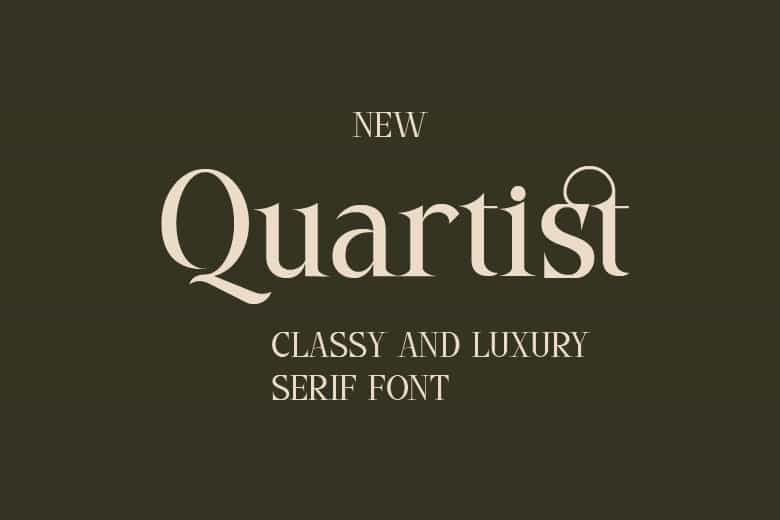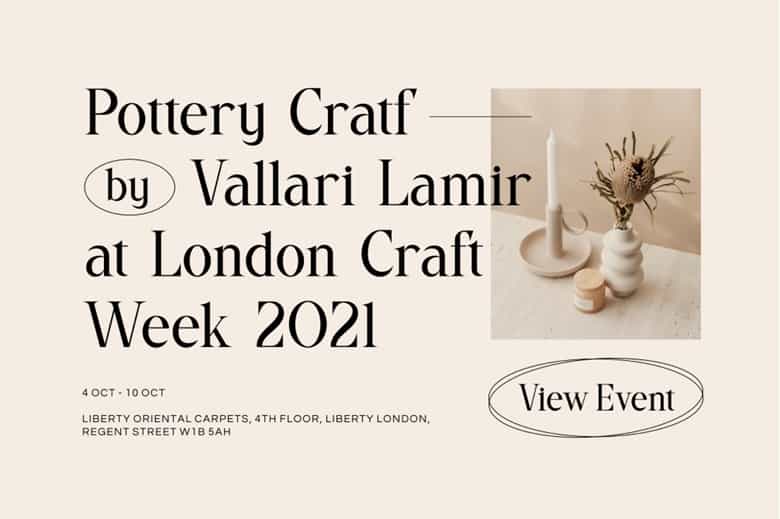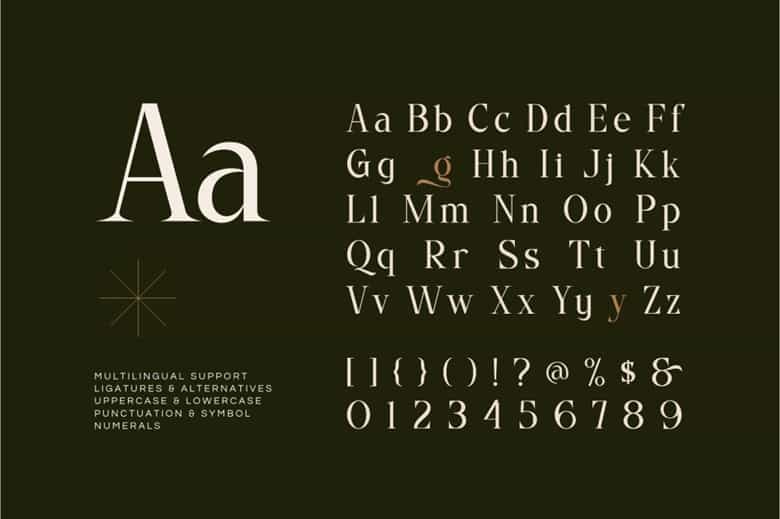
Quartist is a classy and luxury serif font. Quartist is multifunctional as display, body text and brand/logos. Although it offered you a chilled out and relaxed atmosphere, this font sent some messages to any text you wanted to write.